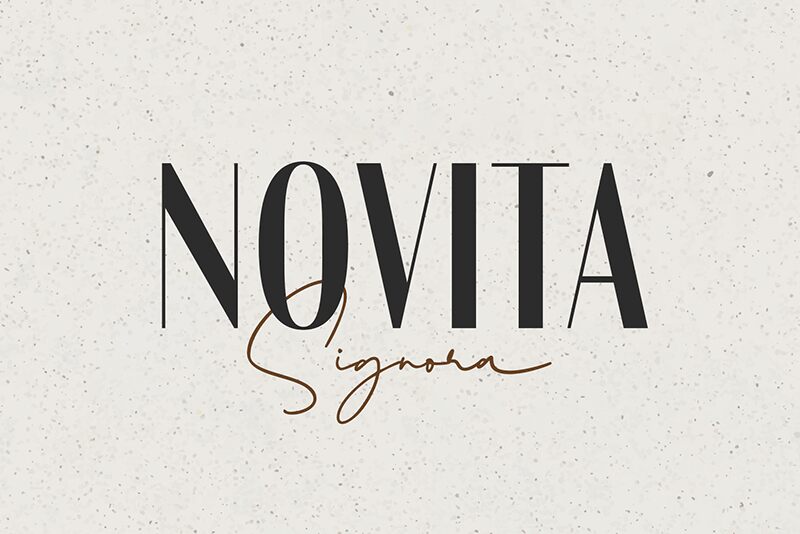
Novita Signora Sans font by Arterfak Project is elegant, high contrast, modern, sophisticated gem. This decorative typeface exudes femininity and reflects all things girly. Featuring distinctive smooth curves and slightly condensed sans-serif influences, decorative elements make it distinguishable with the sleek lines adding to the stylish mood.
Ideal for wedding invitations, floral themed branding, display headers, logos with strong text presence or cosmetics labels. It shines on logo designs that need a chic text element or modern aesthetics when paired alongside floral illustrations for unique visual identity full of character.
Novita Signora Sans